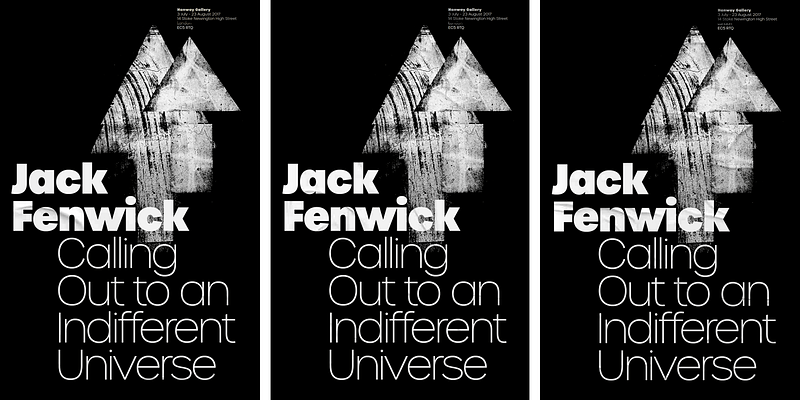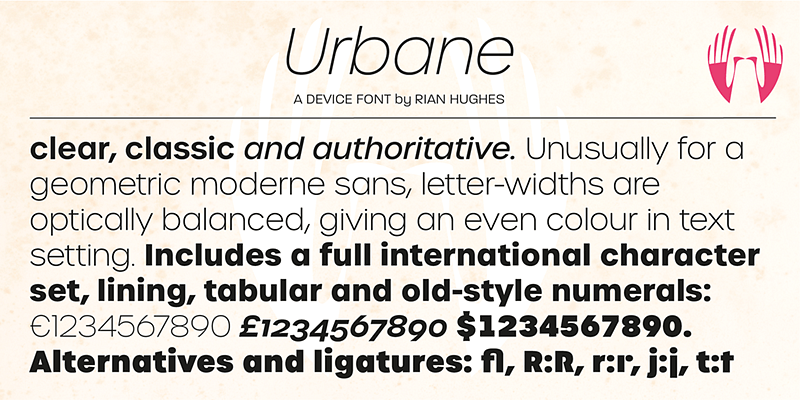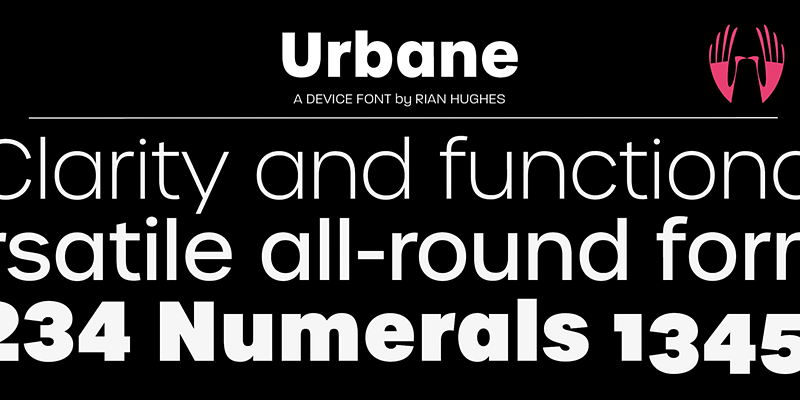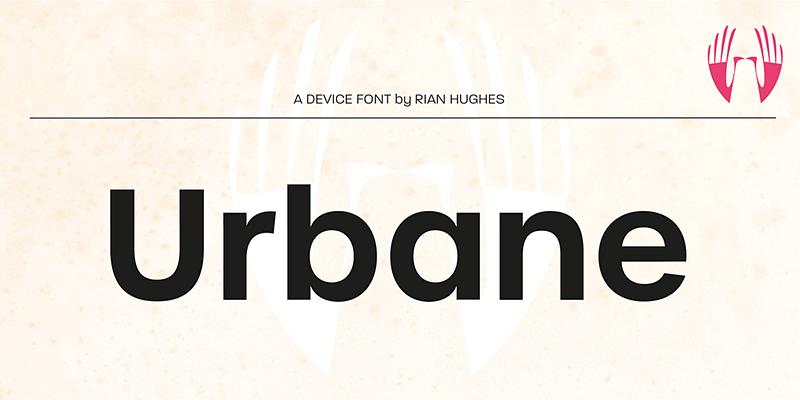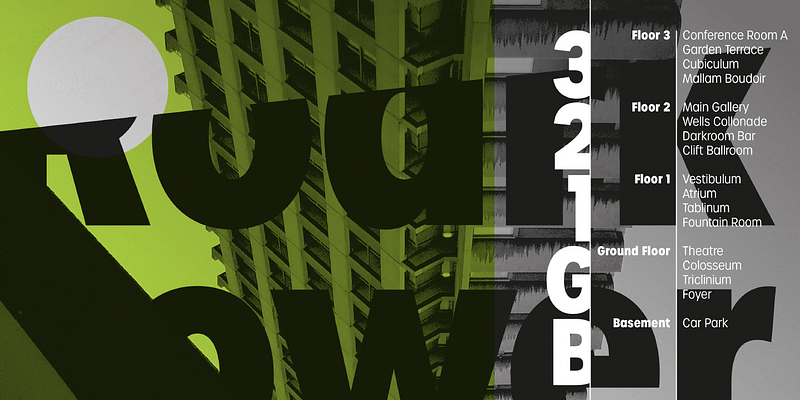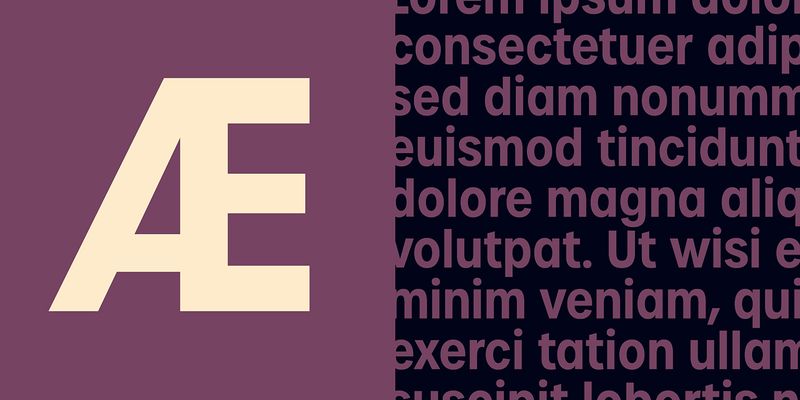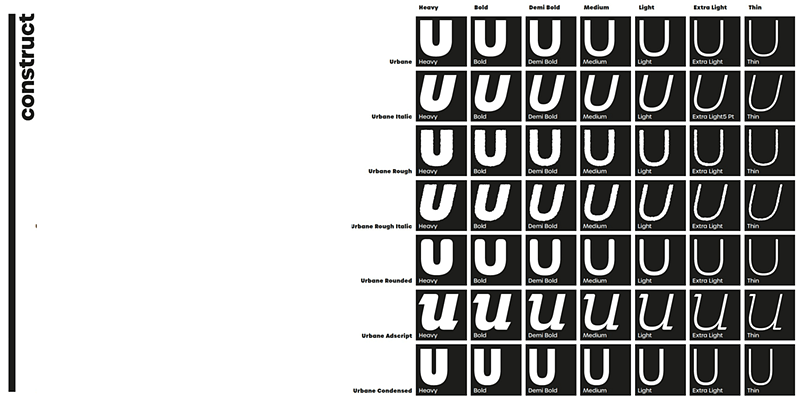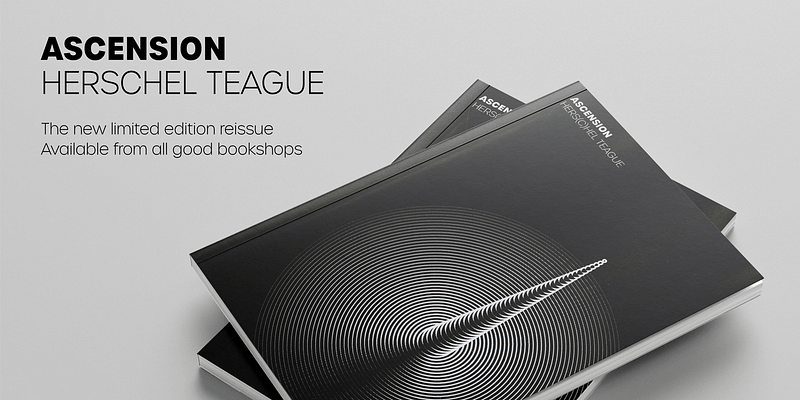
An all-purpose workhorse family with wide application. The larger x-height gives an open readability even in small sizes, while the range of weights and styles – italic, script, rounded, rough – make a large and versatile family.
Type, design and imagery by English illustrator and typographer Rian Hughes.